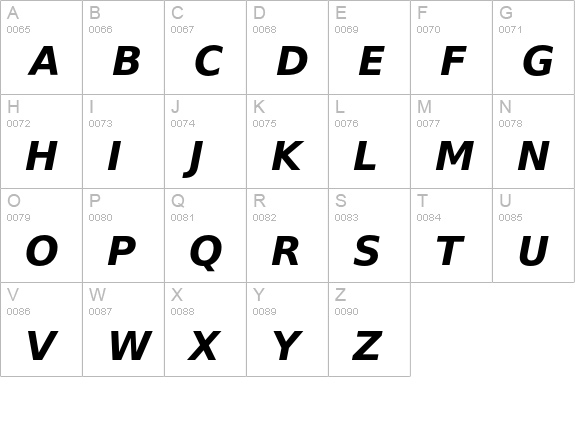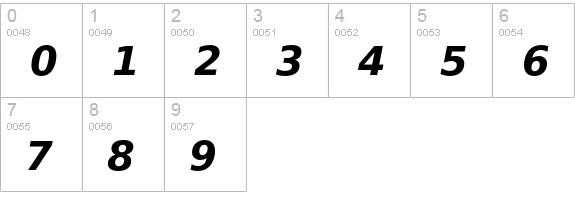
Prima Sans Bold Oblique is a strong, high-contrast, italic variant in the Prima typeface family \xE2\x80\x94 well suited to headlines, attention-grabbing titles, and strong calls-to-action.
Prima Sans Bold Oblique is a stylish and versatile typeface that exudes confidence and modernity. The bold slanted design adds a touch of drama and sophistication to any project, making it perfect for headlines, logos, and branding materials. Its clean lines and sharp angles give it a contemporary edge while maintaining readability and impact. This font is not only visually striking but also highly functional, ensuring that your message is conveyed with clarity and flair. Whether you're designing for print or digital media, Prima Sans Bold Oblique will make a bold statement that commands attention. Best of all, this exceptional font is available for free download at FontsMarket.com. So why wait? Elevate your designs today with Prima Sans Bold Oblique and make a lasting impression with its distinctive style and elegance.